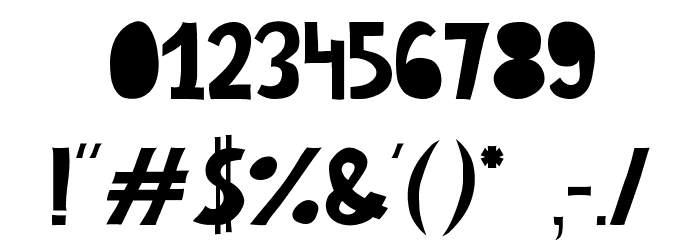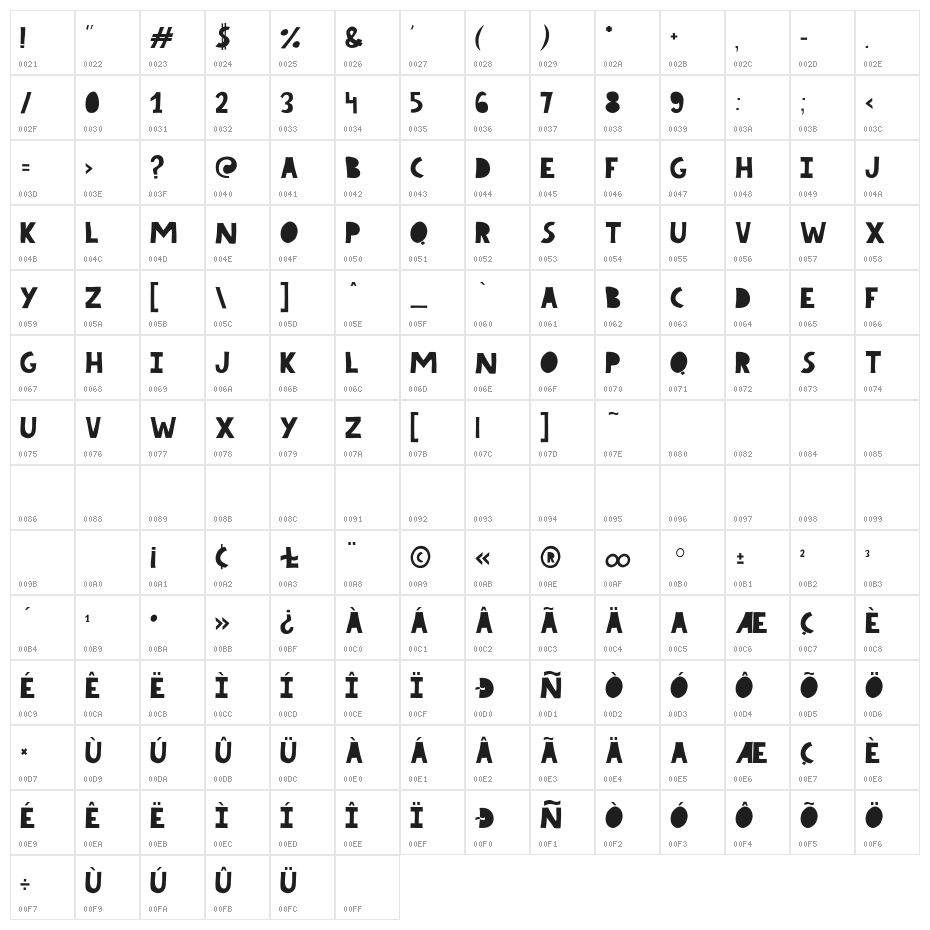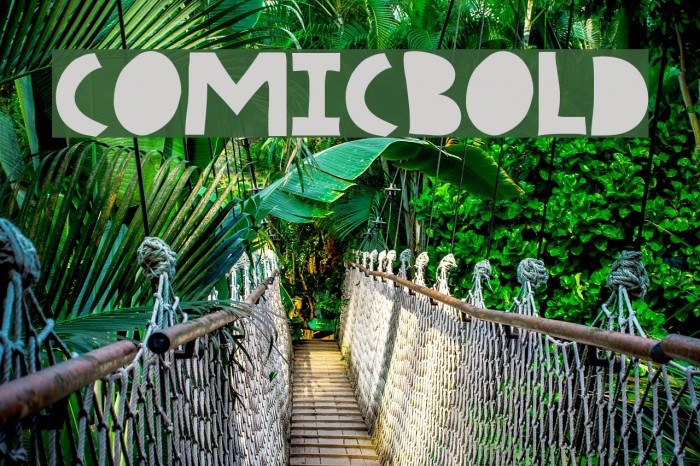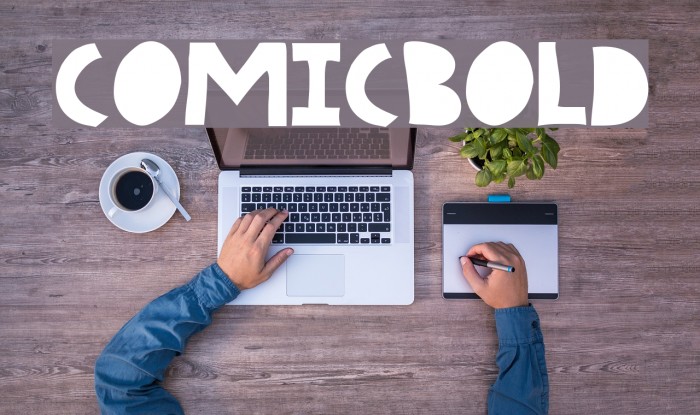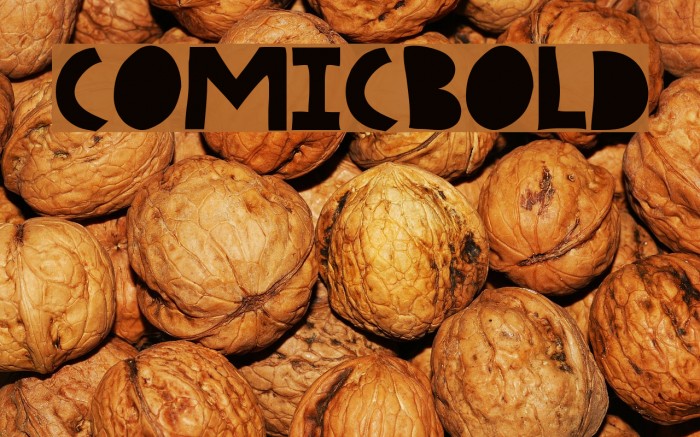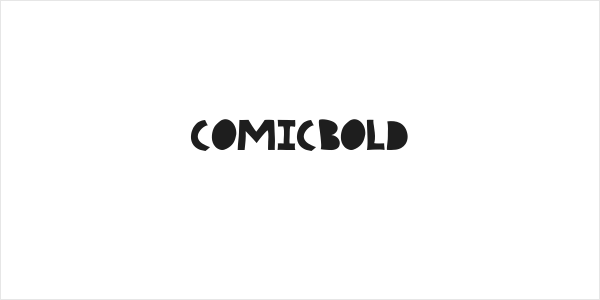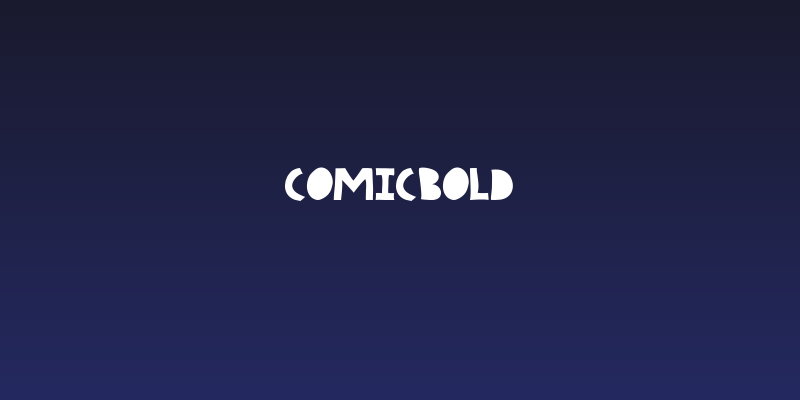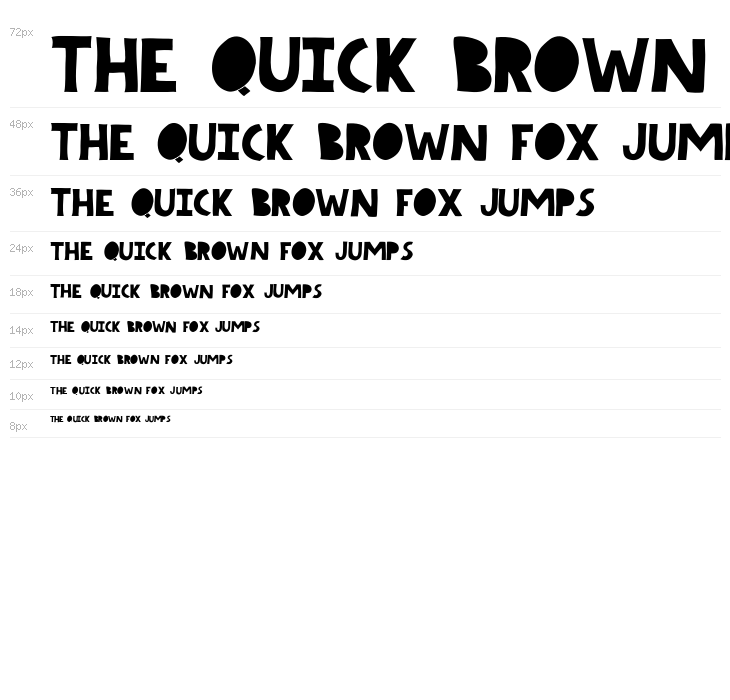
COMICBOLD Font
COMICBOLD Description
This font is characterized by its playful and bold appearance, reminiscent of comic book lettering. The letters are thick and rounded, with a slightly irregular shape that adds to its informal and fun style. The uppercase and lowercase letters maintain a consistent weight, providing a cohesive look. The numbers and special characters follow the same design principles, ensuring uniformity across all glyphs. Its boldness and unique style make it stand out, making it suitable for attention-grabbing designs.
| Overall Style | Playful, Informal |
| Proposed Projects | Ideal for comic books, children's books, playful posters, and informal branding projects. |